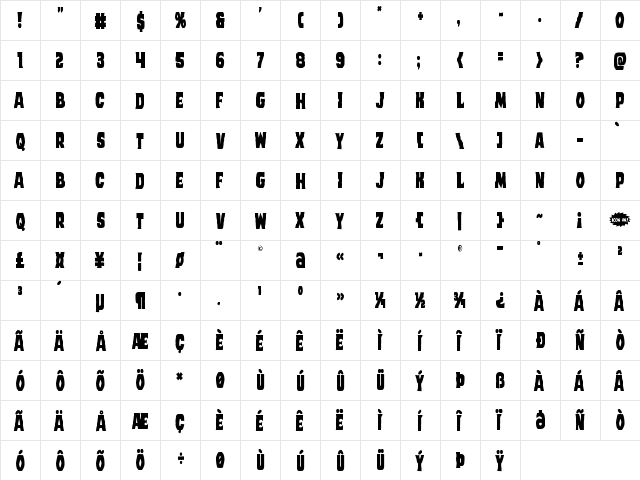
Dusk Demon Condensed Regular
Design Context for Dusk Demon Condensed Typeface
Dusk Demon Condensed takes a measured approach to typography — its balanced proportions and neutral character make it a reliable workhorse for both digital and print work. Its narrow stance lets it pack a punch even in space-constrained designs.